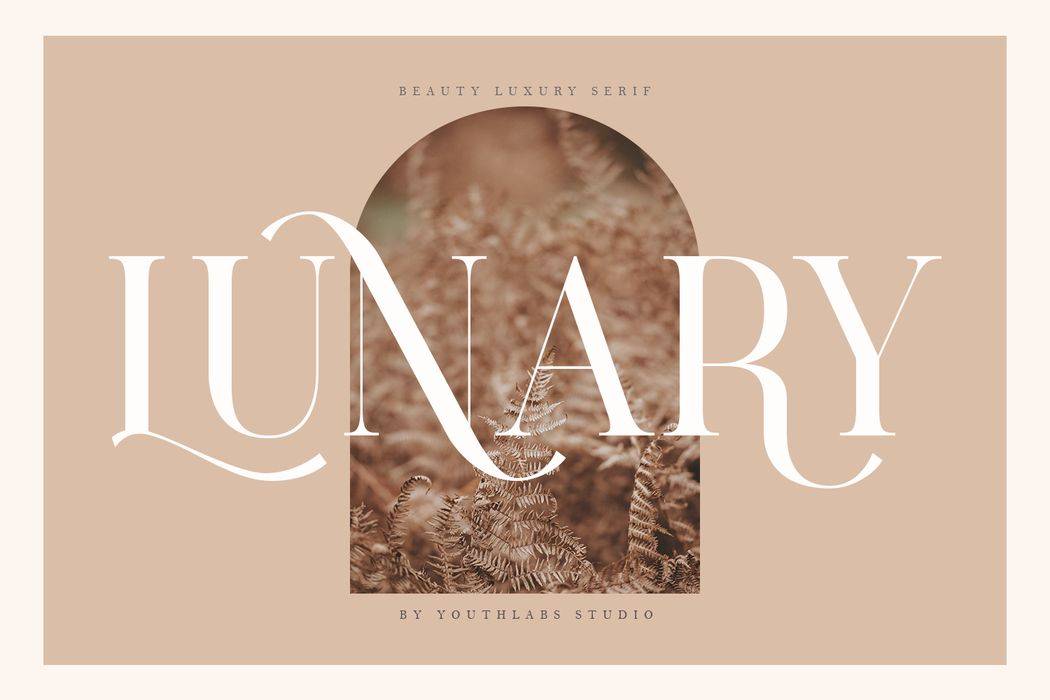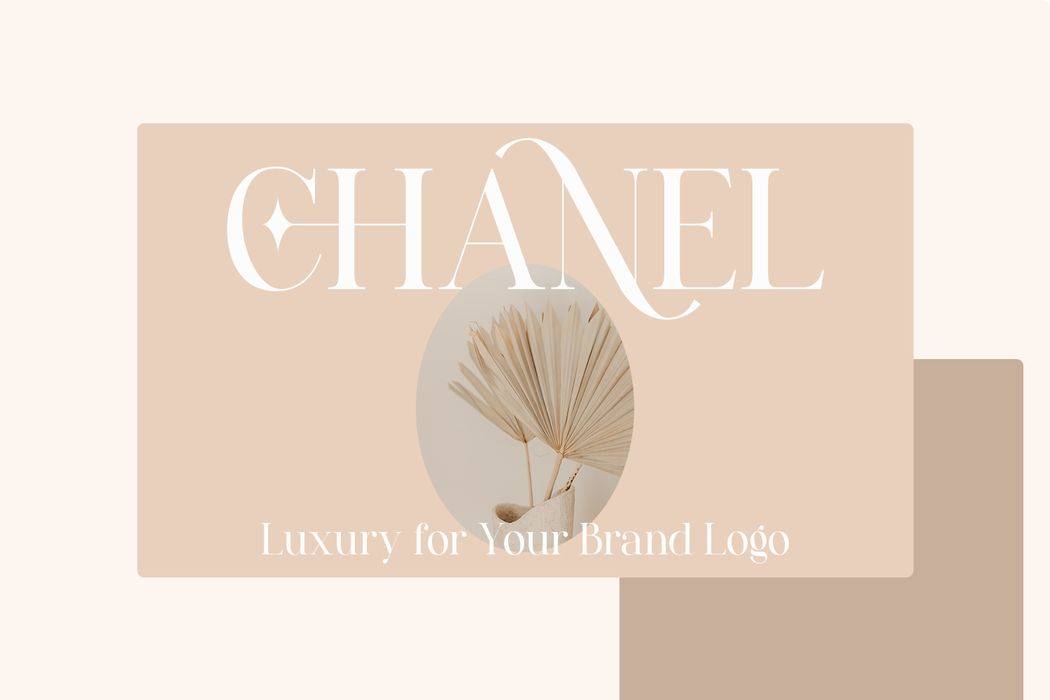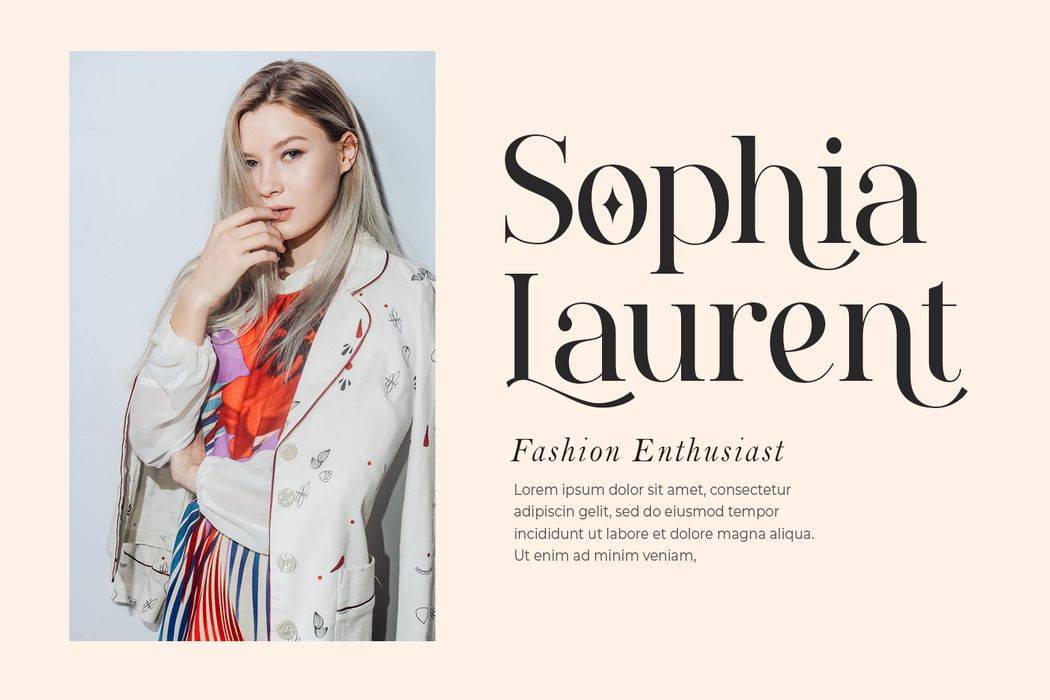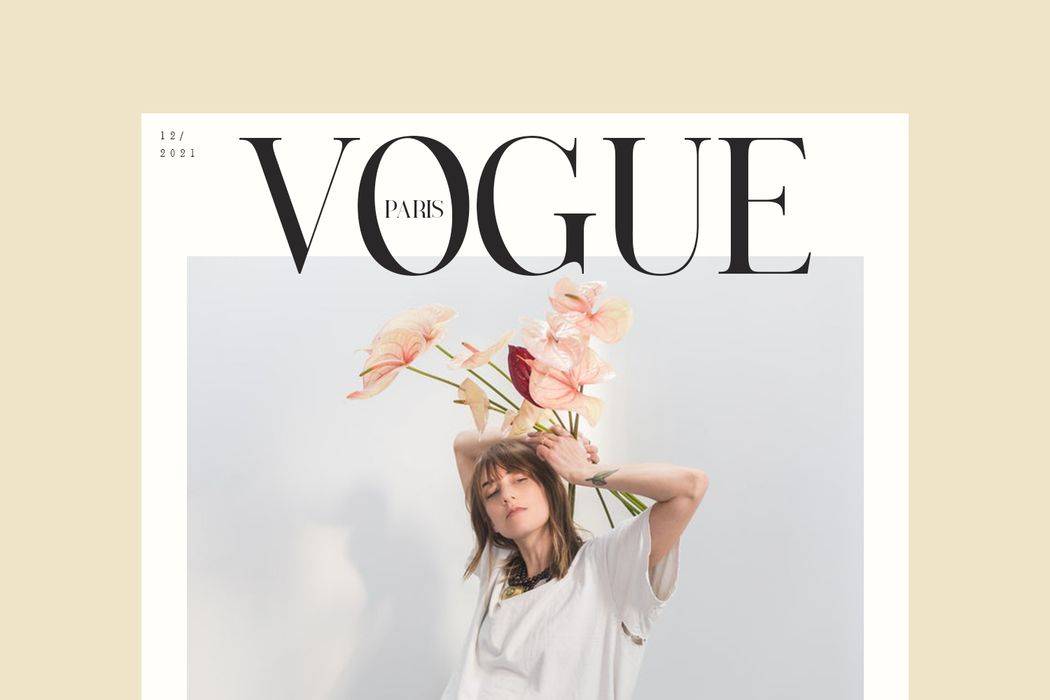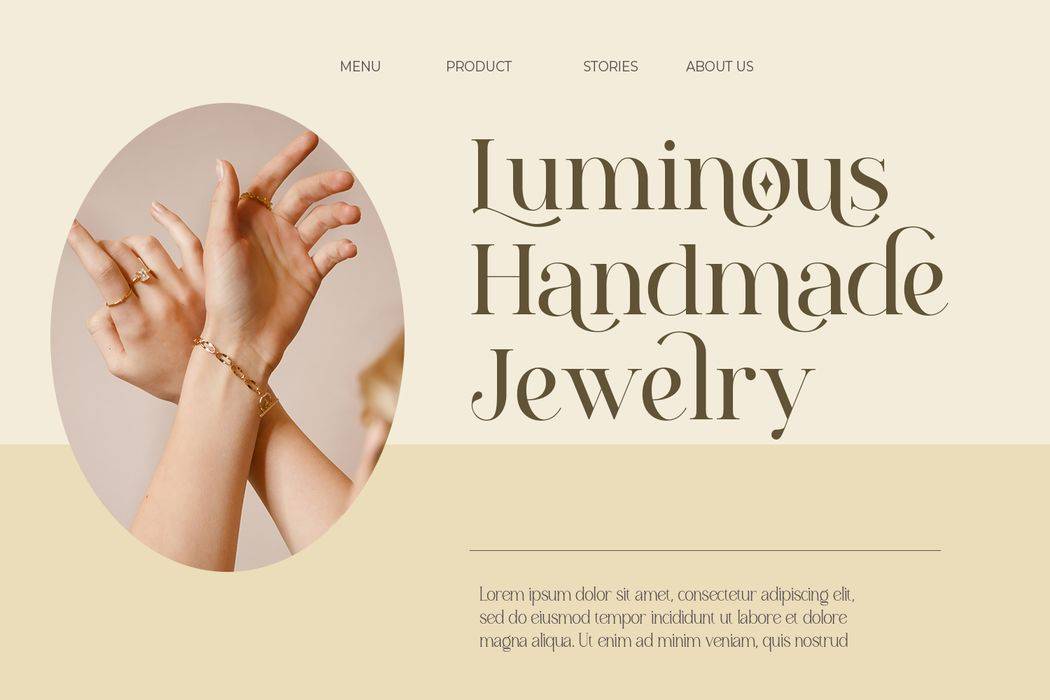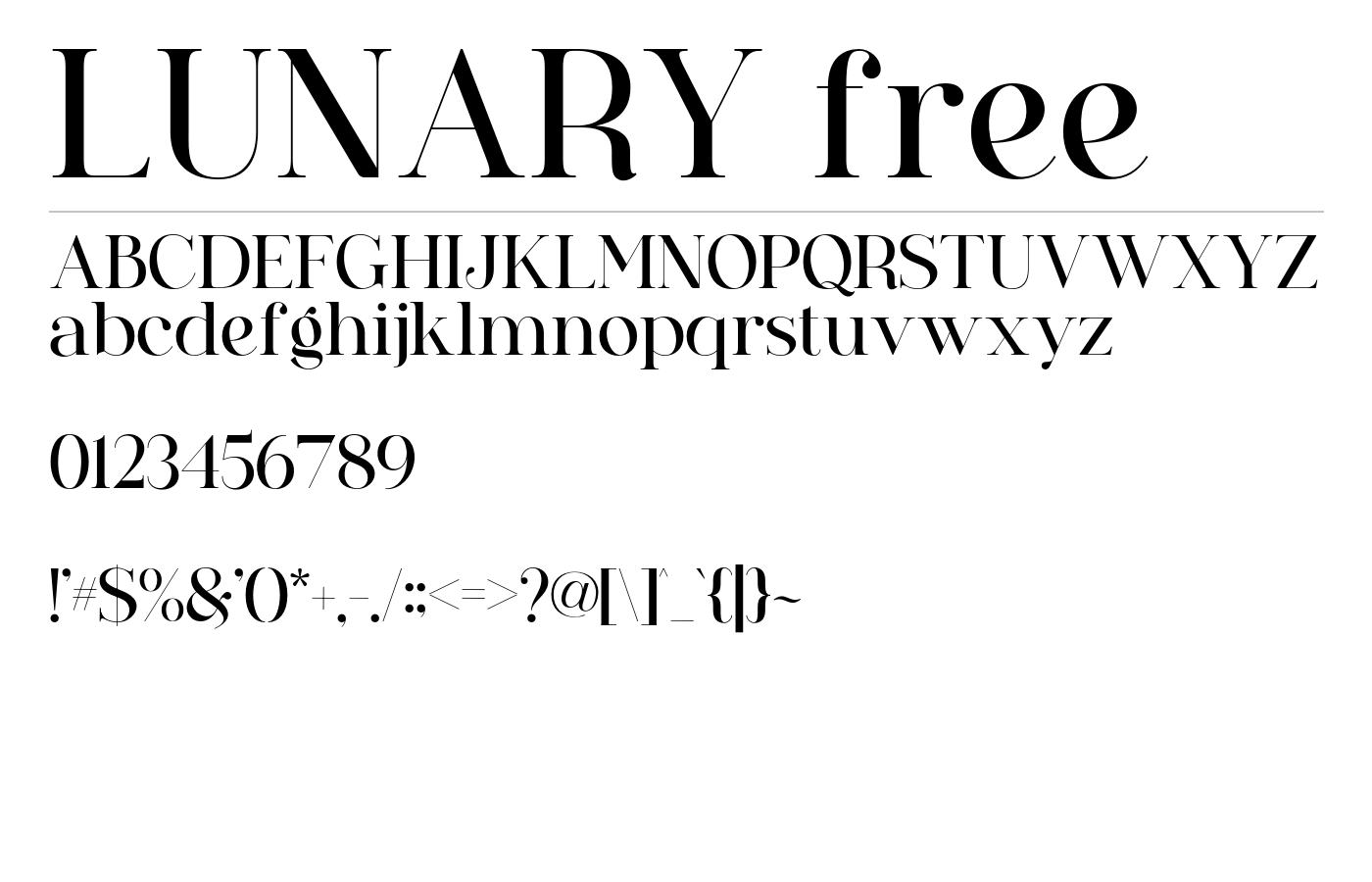
Lunary is an elegant serif font with a modern Didone style, featuring high contrast between thick and thin strokes and delicate, bracketed serifs. Its refined letterforms and tall x-height give it a sophisticated yet approachable feel, making it perfect for luxury branding, editorial headlines, and stylish packaging. This font works beautifully where a sense of grace and modern refinement is desired.